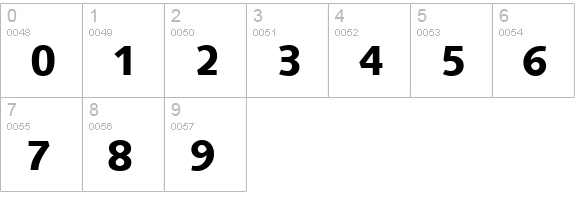
Symphony Black is a maximum-weight, dramatic variant in the Symphony typeface family \xE2\x80\x94 well suited to maximum-impact headlines, posters, and packaging.
Symphony Black font exudes elegance and sophistication with its sleek and modern design. This versatile typeface features sharp, clean lines that give it a timeless appeal, perfect for adding a touch of class to any project. The bold strokes and subtle curves of Symphony Black make it an excellent choice for headlines, titles, and branding materials that require a bold statement. What's even better is that Symphony Black font is freely available to download at FontsMarket.com. So, whether you're working on a professional project or simply looking to enhance your personal designs, this stunning font is just a click away. Don't miss out on the opportunity to elevate your typography game with Symphony Black font, now easily accessible and ready to be incorporated into your creative endeavors.